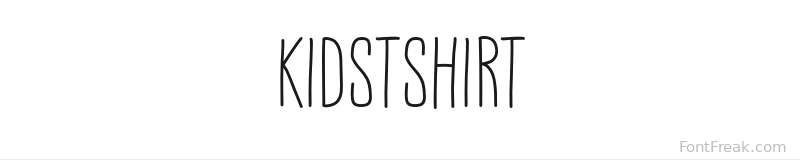
Kidstshirt
About Kidstshirt
The Kidstshirt font by Syaf Rizal is a delightful display typeface that captures a playful and youthful essence, making it perfect for various creative projects. This font features a handwritten style that combines irregular strokes and a whimsical feel, reflecting the carefree nature often associated with childhood. The stroke weight is consistent, providing a friendly and approachable look, while the open spacing between characters enhances readability.
Kidstshirt is particularly well-suited for use in children's apparel designs, educational materials, and fun event invitations. It can add charm to birthday party invitations, making them more appealing to both kids and parents alike. Additionally, this font works wonderfully for posters promoting kids' activities or events, as it draws attention without overwhelming the viewer. Small business owners targeting families or children’s products will find it an excellent choice for branding, as it conveys a sense of joy and excitement.
Graphic designers will appreciate the versatility of the Kidstshirt font, as it can be effectively used in digital and print media. Whether you are creating logos, social media graphics, or even merchandise, this font brings a unique flair that resonates with its audience. The Kidstshirt font free download option makes it accessible for content creators looking to elevate their designs without incurring additional costs.
What sets the Kidstshirt font apart is its ability to evoke nostalgia while maintaining a fresh, contemporary style. It successfully bridges the gap between fun and professional, making it a valuable asset for any designer's toolkit. With its charming appearance and broad applicability, Kidstshirt is sure to become a favorite for those aiming to infuse their projects with personality and warmth.